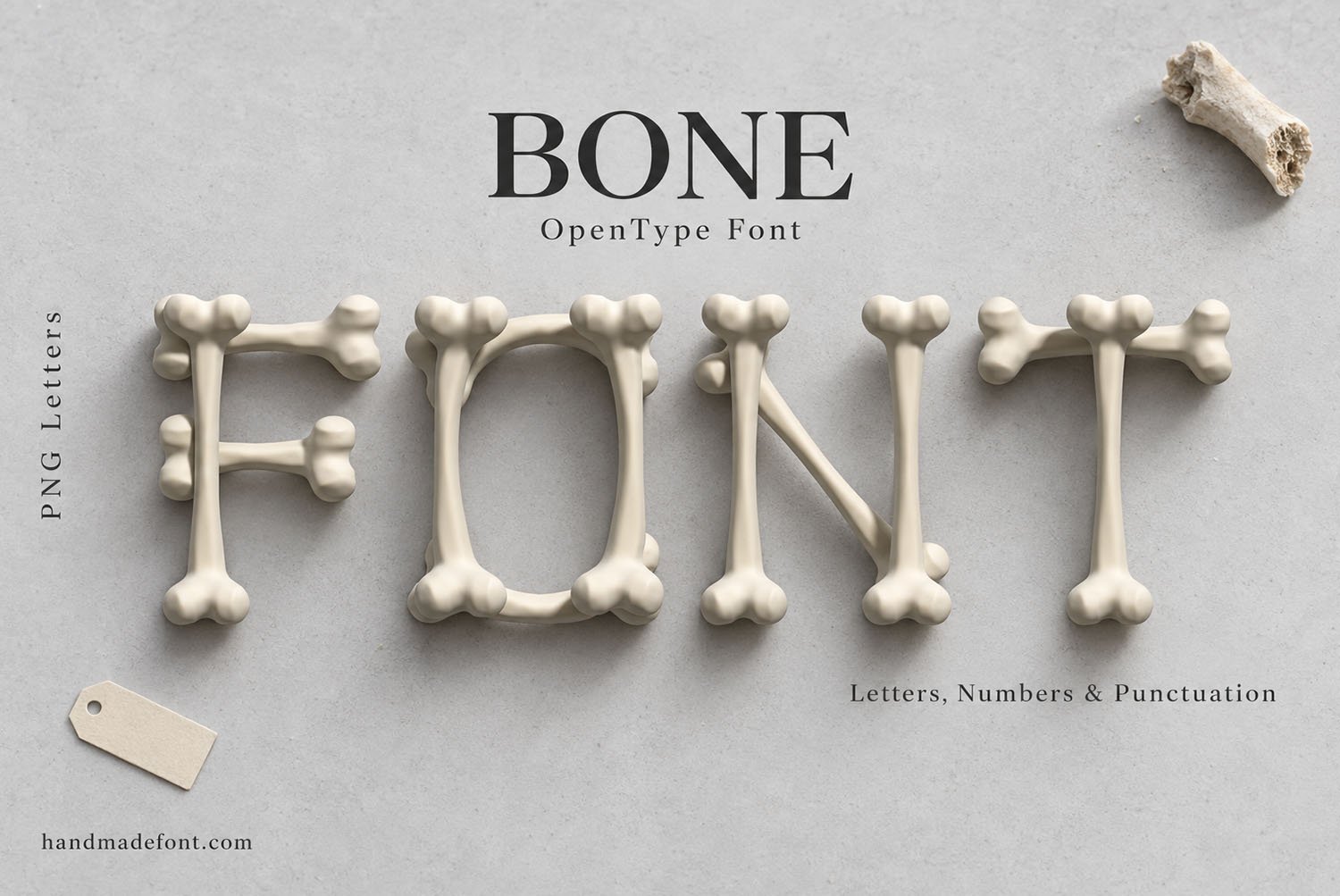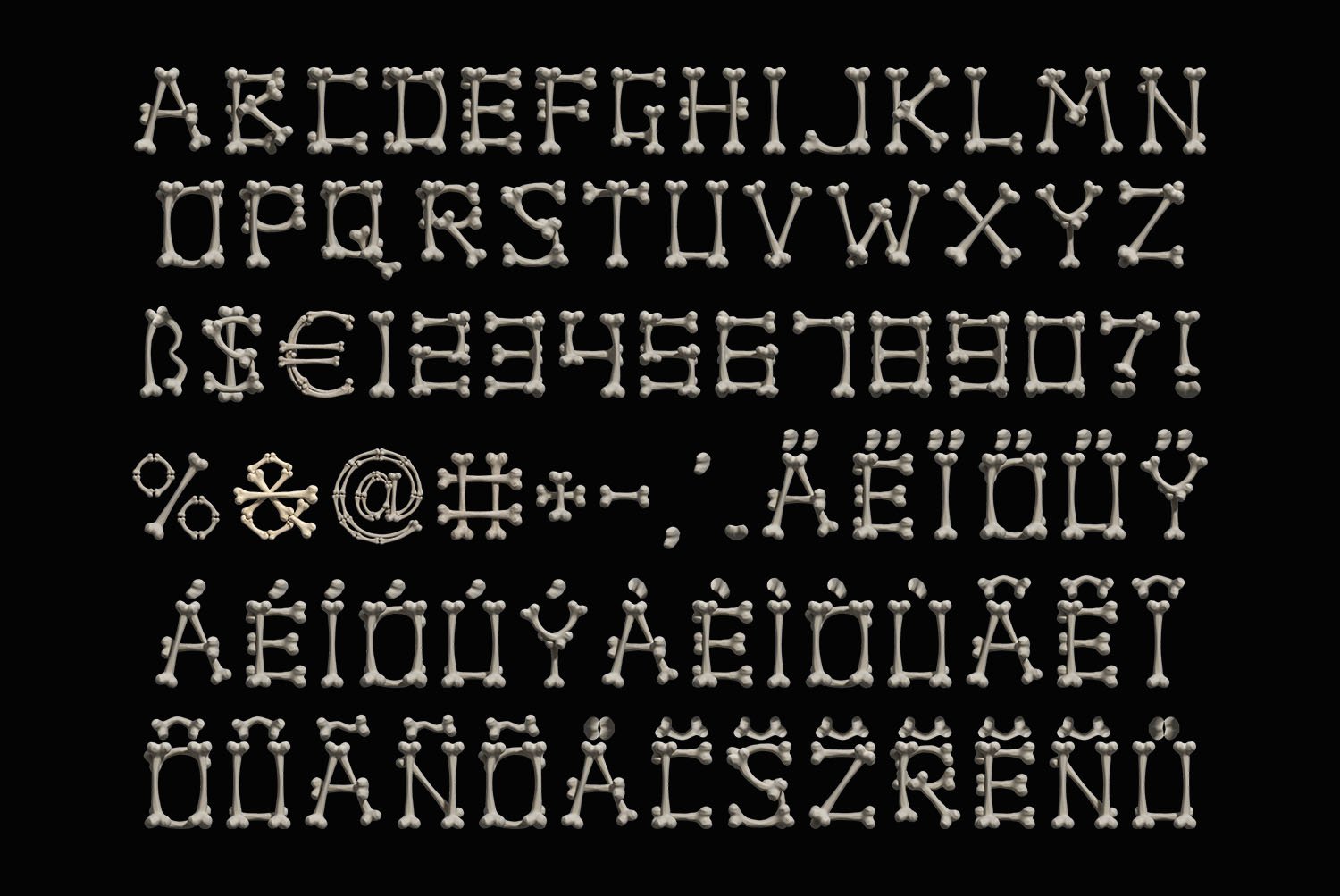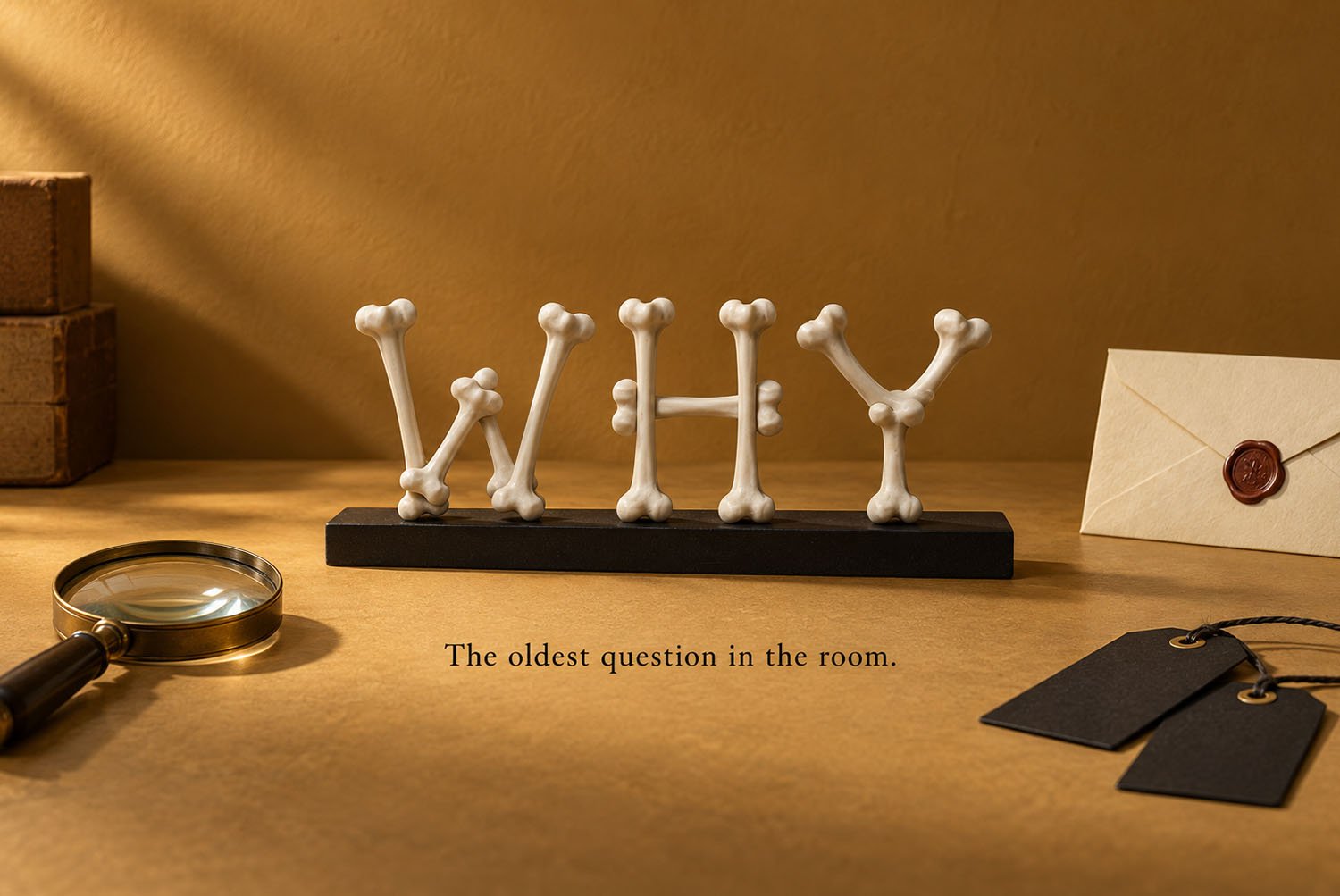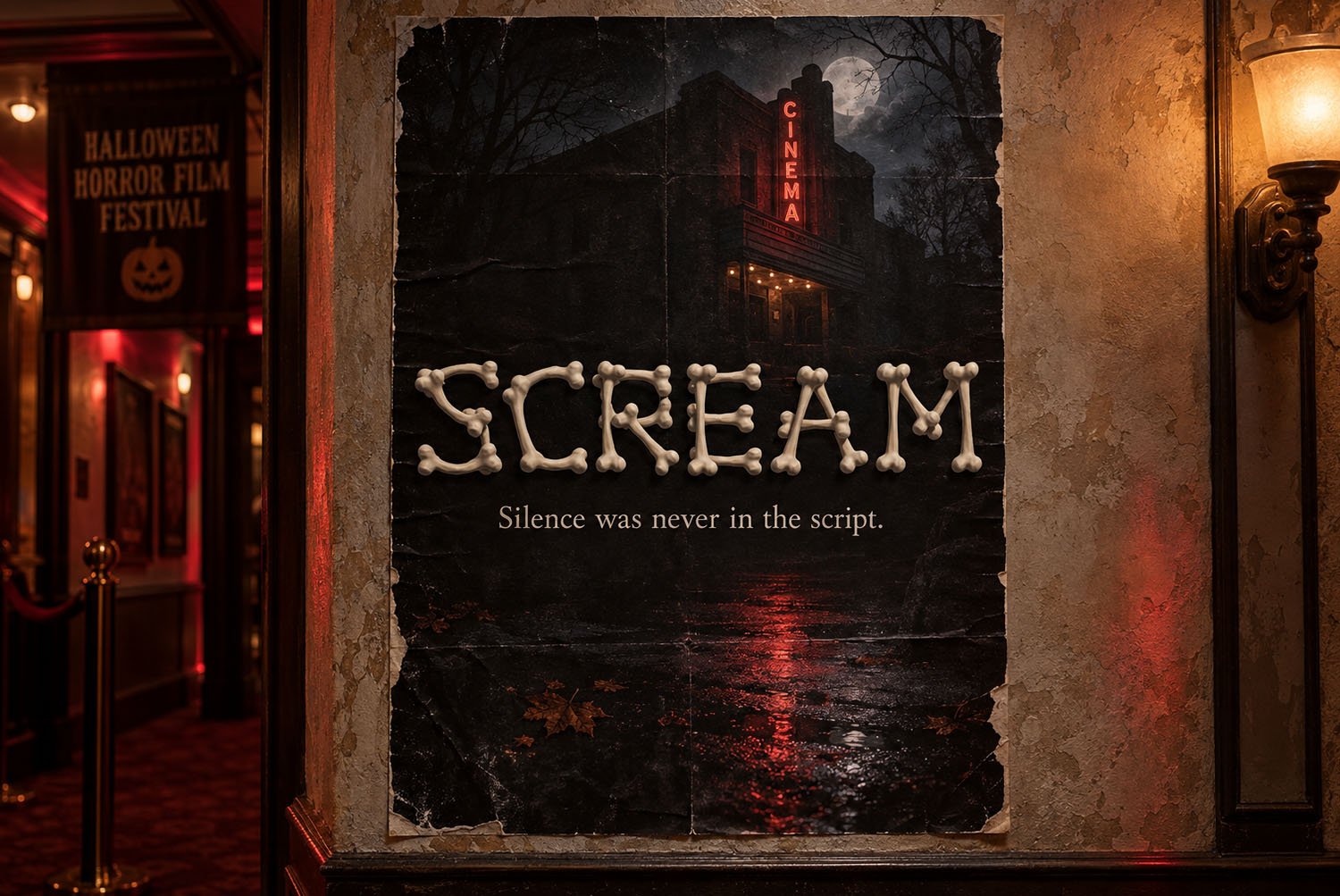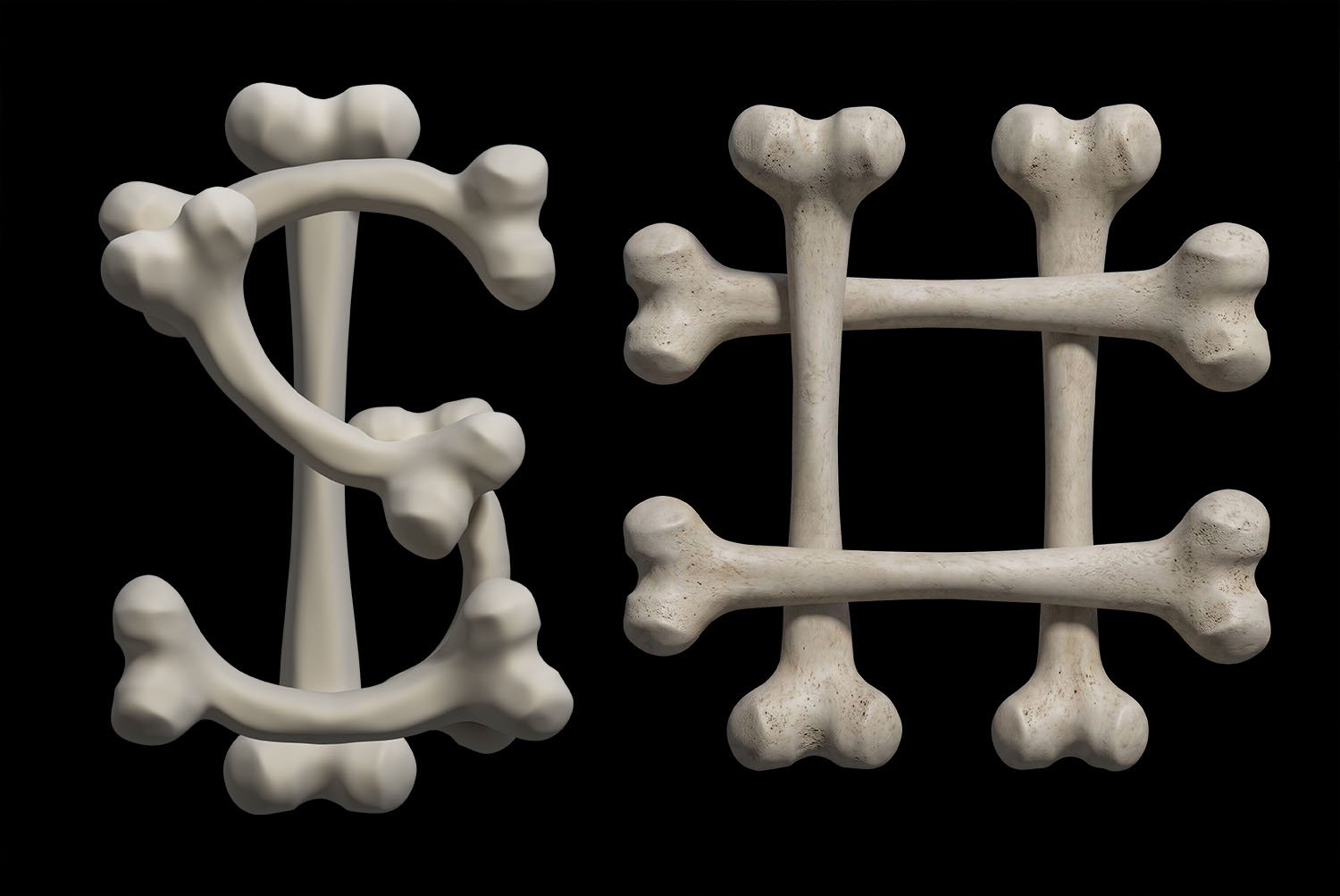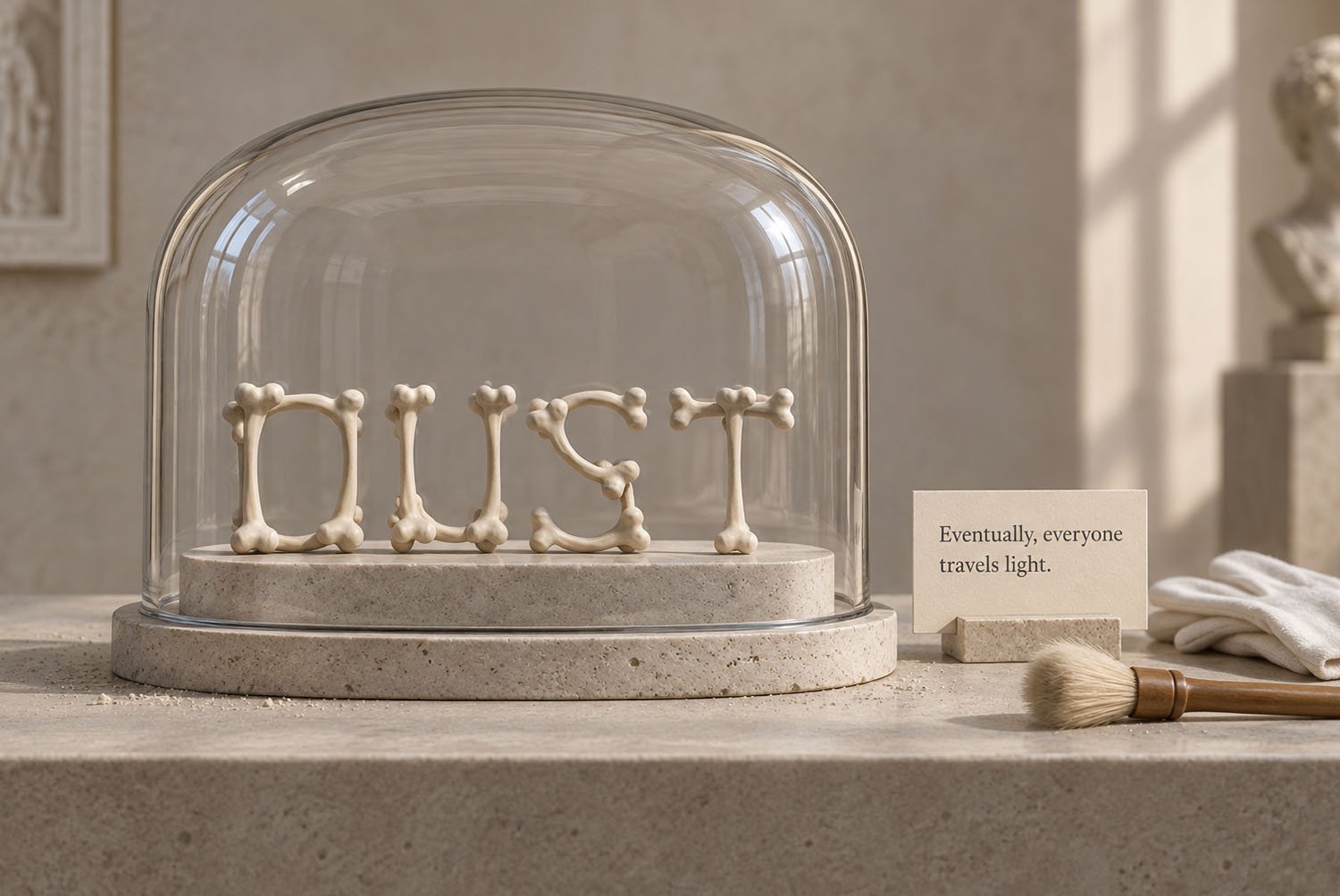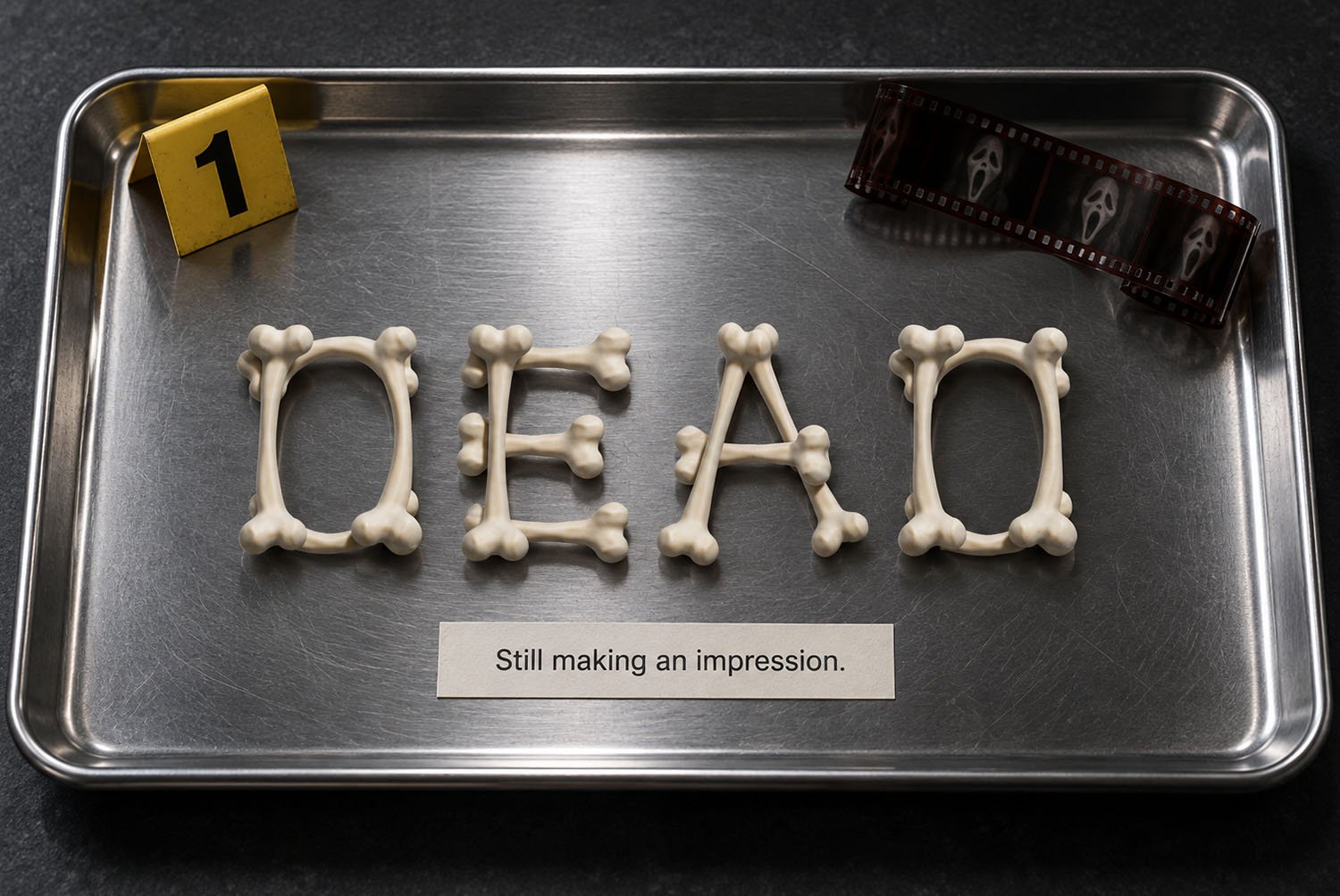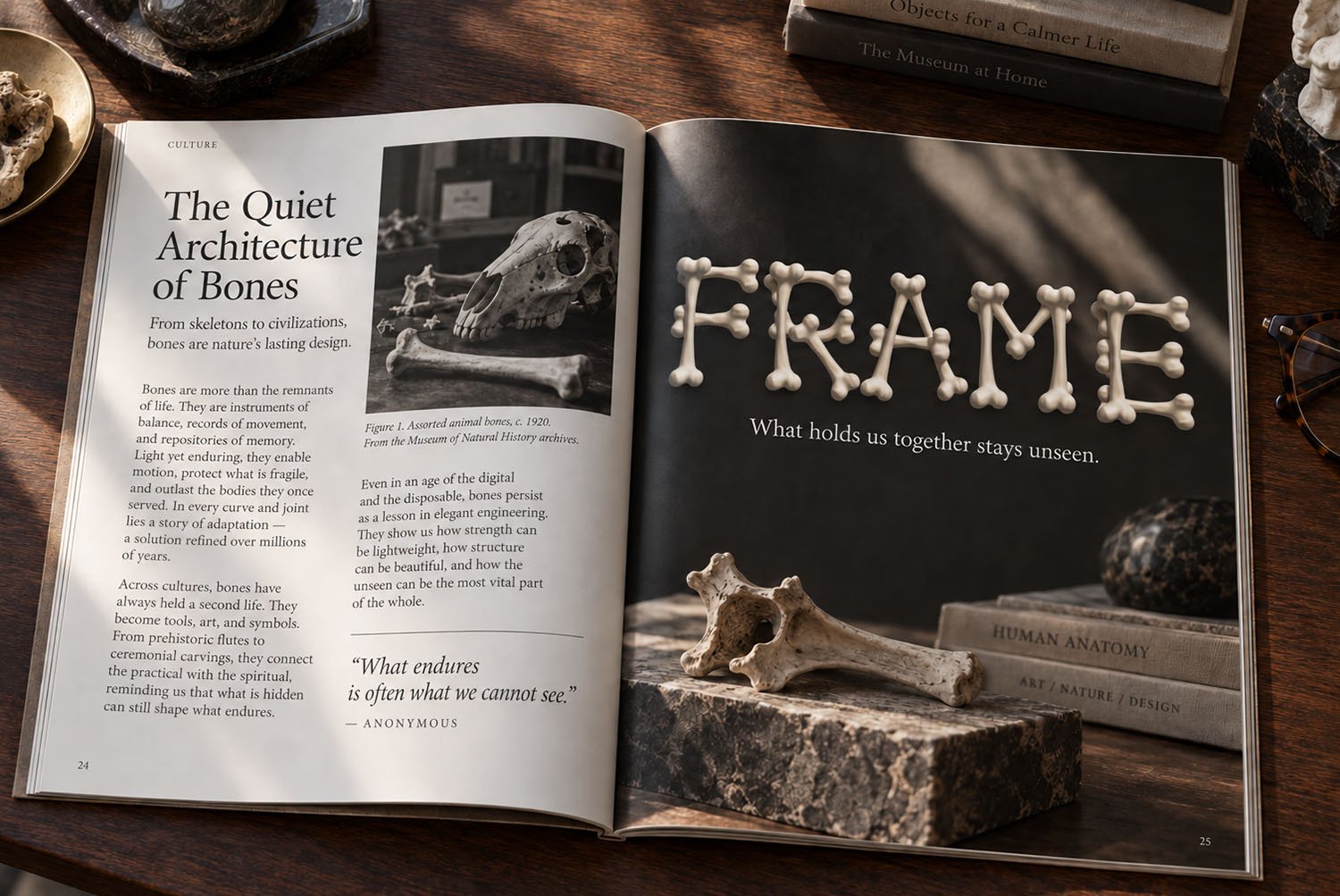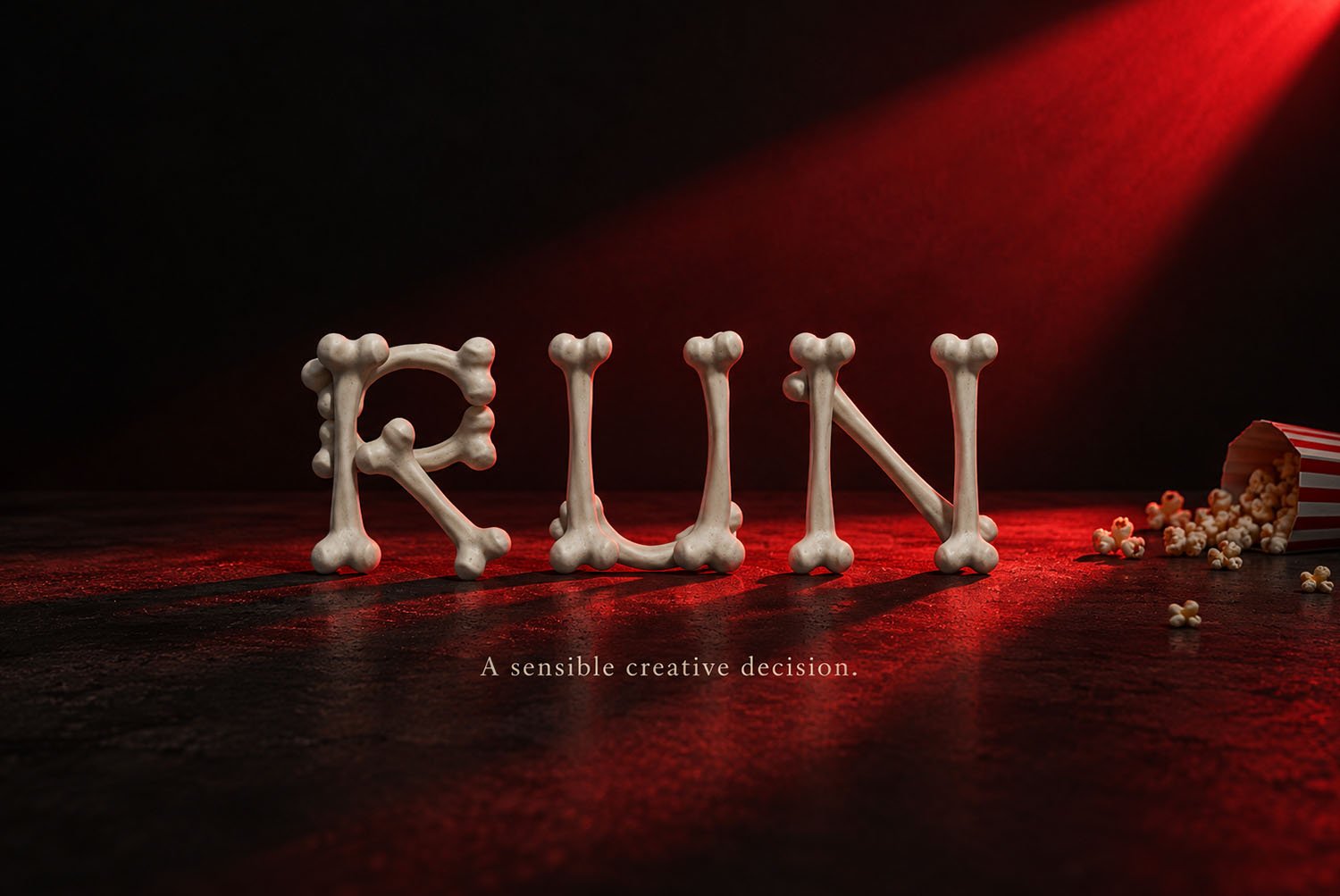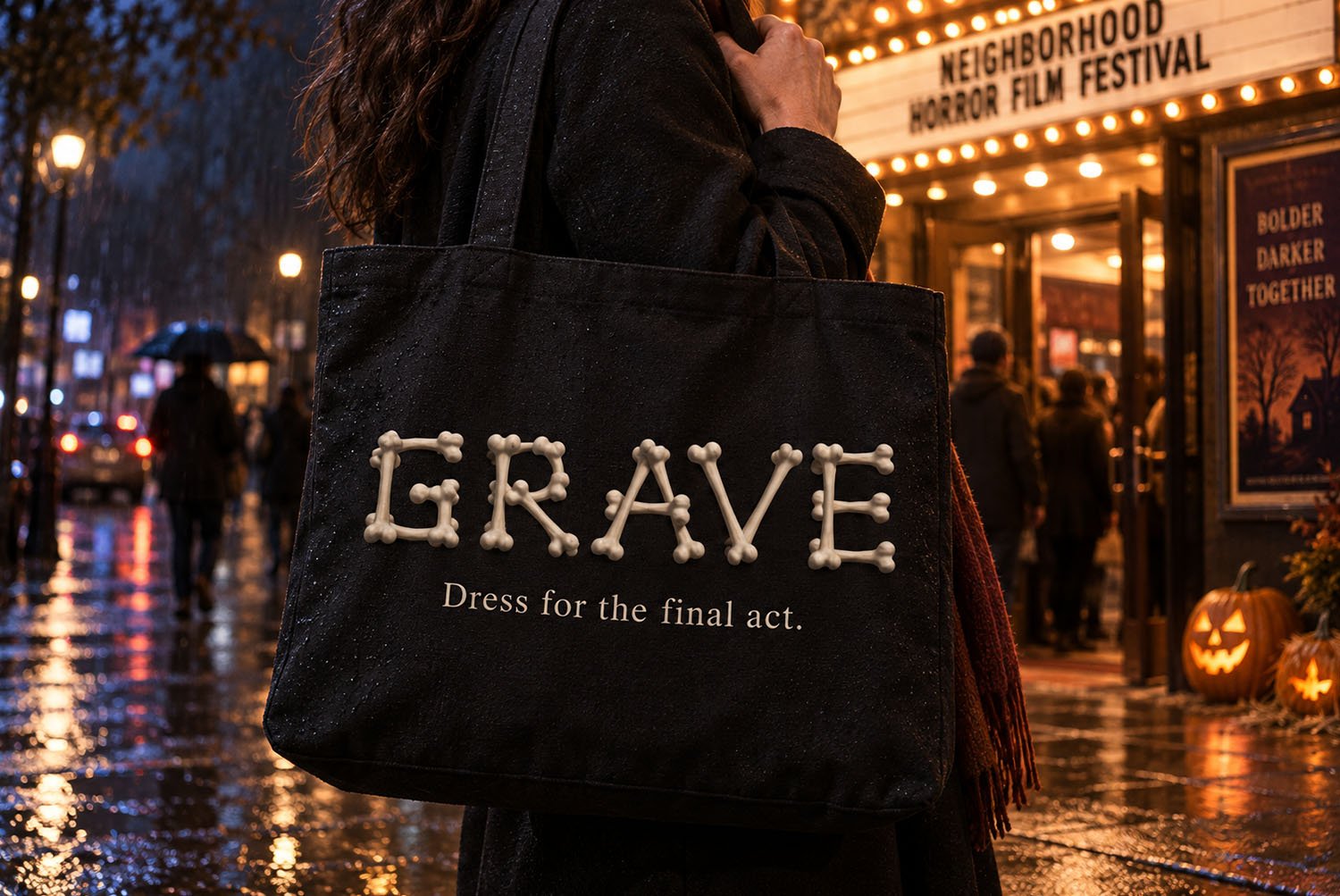
Bone Font
Bone Font gives your designs a bold, playful prehistoric character. Its sculptural letters feature a handmade bone texture that instantly creates a strong visual statement. This unusual typeface is ideal for Halloween graphics, dinosaur themes, adventure posters, museum projects, children’s designs, game artwork, and creative branding. The package includes an OTF file for easy use in compatible design software. Every letter is also provided separately as a high-quality PNG with a transparent background. Create custom words, layered compositions, social media posts, invitations, packaging, logos, and decorative layouts with a distinctive ancient, wild, and imaginative atmosphere.